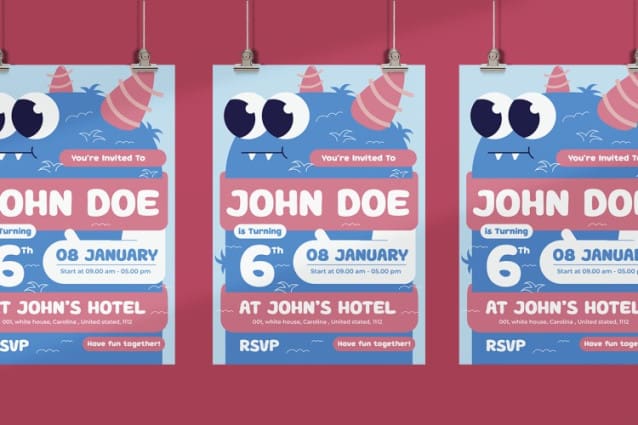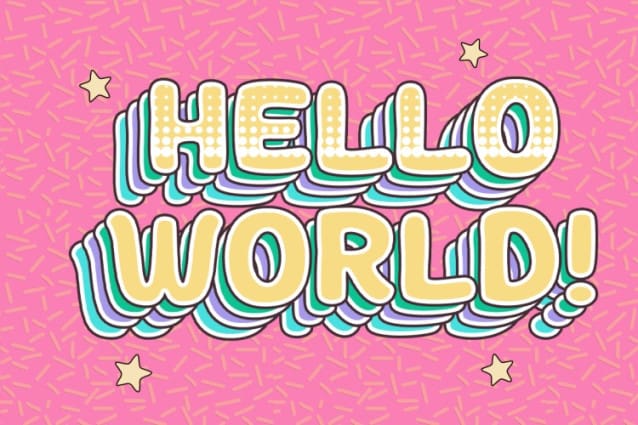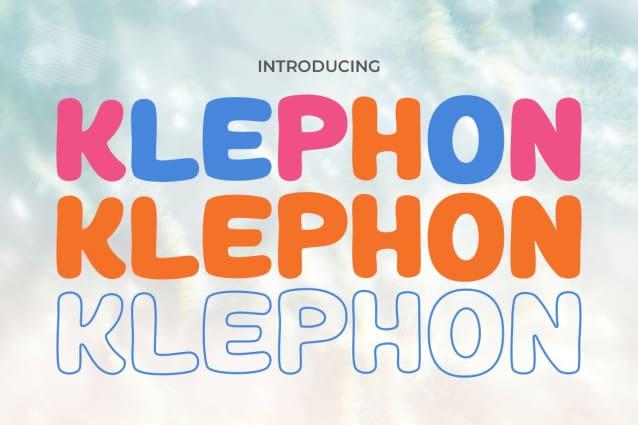
Klephon Display Font
Klephon Display Font, a whimsical and playful font specially designed to capture the essence of childhood joy. With its rounded edges and bubbly shapes, Klephon is perfect for engaging young minds and enhancing any kid-centric project. From delightful storybooks to lively educational apps, and charming birthday invitations to vibrant classroom decorations, Klephon adds a touch of fun and creativity that is sure to enchant and entertain children while encouraging their reading and learning adventures. Whether you’re a designer aiming to create a captivating atmosphere or an educator seeking to make learning more enjoyable, Klephon Display is your go-to font for bringing smiles and laughter to young audiences.